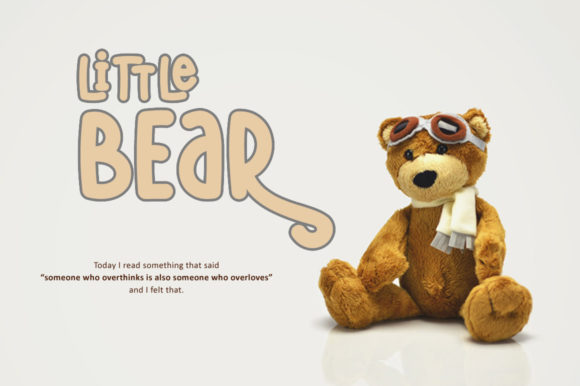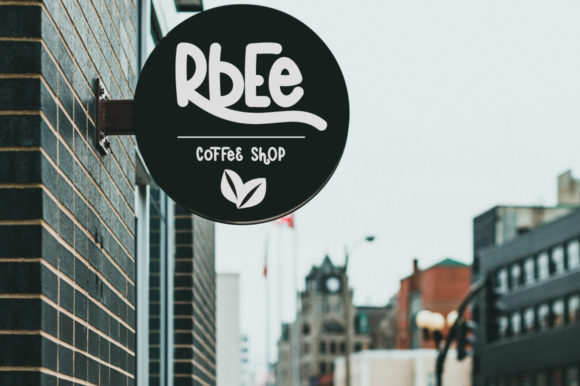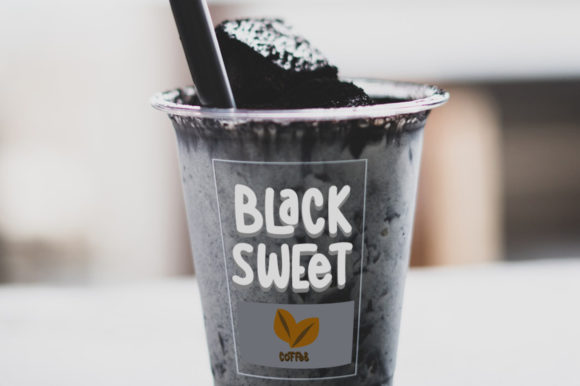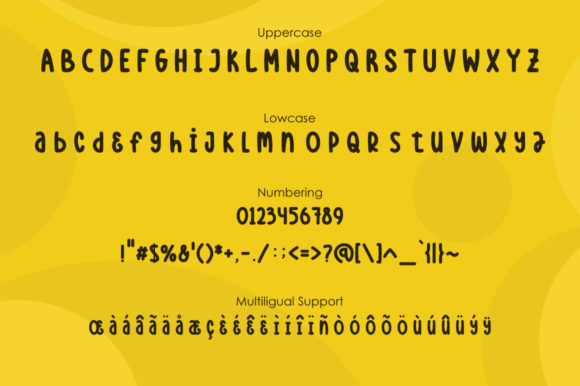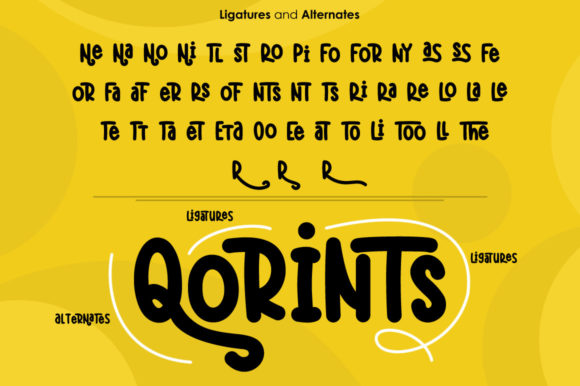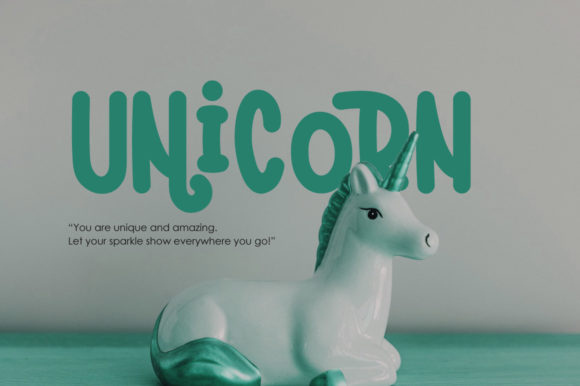
Introduction to Qorints Font
As a designer, there’s nothing quite like the thrill of bringing a new creative project to life. You’ve poured hours into crafting the perfect concept, carefully selecting each element to create a cohesive and engaging visual identity. But, it all starts with the foundation – the font. And, that’s where Qorints Font comes in. This delightful, easy-to-read display font is the perfect addition to any design project, exuding a sense of friendliness that’s sure to captivate your audience.
What sets Qorints Font apart is its PUA encoding, allowing designers to access a wide range of glyphs and swashes with ease. This means you can create intricate, high-quality designs with a transparent background, adding an extra layer of depth and visual interest to your work. And, the best part? It’s available for a free download, making it an invaluable resource for designers of all levels.
- Unique characteristics: Qorints Font features a distinctive, modern design with clean lines and geometric shapes, perfect for branding, logos, and digital products
Honest Review: Qorints Font
I recently stumbled upon the Qorints Font and was excited to give it a try in my latest design project. As a designer, I’m always on the lookout for high quality design resources that can elevate my creative work. The Qorints Font definitely delivers in terms of style and versatility.
What works well is the unique and modern aesthetic of the font. It has a sleek and sophisticated look that’s perfect for a variety of design projects, from logos to brochures. I also appreciate the transparent background, which makes it easy to integrate into my designs without any distractions.
- ✨ Unique and modern aesthetic
- ✨ High quality design
However, I do have a few limitations to note. The font selection is limited, which might not be ideal for designers who prefer a wide range of options. Additionally, the font’s versatility is mostly suited to digital designs, which may not be the best choice for print materials.
Overall, I’d say the Qorints Font is a solid choice for designers looking for a high quality and modern font. While it may not be perfect, its unique aesthetic and transparent background make it a valuable addition to any design resource collection.
The Qorints Font is a high-quality design resource suitable for a wide range of creative projects. Its transparent background makes it versatile for use in various applications.
Tips for Getting the Most Out of Qorints Font
For optimal results, use the Qorints Font in combination with high-contrast colors and a clear design layout. Experiment with different font sizes and styles to find the perfect balance for your project.
The Qorints Font is suitable for a wide range of creative projects, including logos, posters, brochures, and business cards. Its versatility and high-quality design make it an excellent choice for designers and non-designers alike.
Does Qorints Font have a transparent background?
Yes, the Qorints Font has a transparent background, making it easy to use on different backgrounds and designs. This feature is particularly useful for designers who want to create visually appealing designs with a seamless integration of text and background.